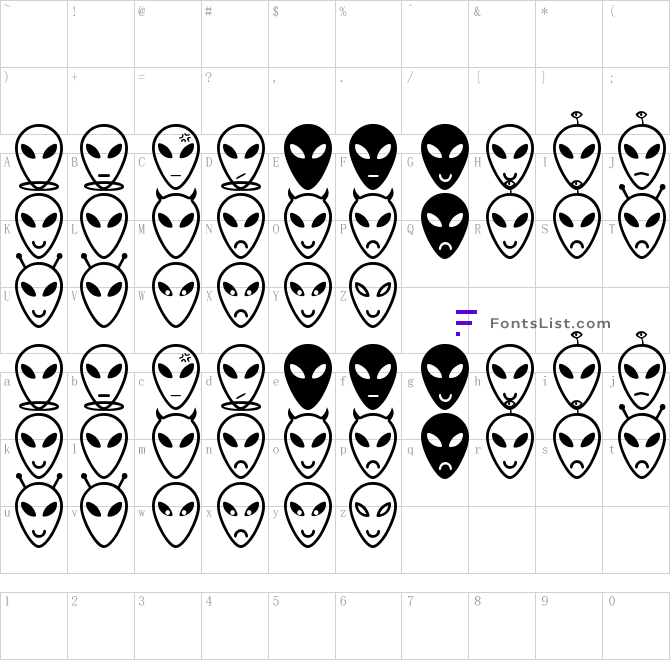
- Font Name:Alien faces St
Alien-faces-St.ttf is a very beautiful artistic font, Alien-faces-St.ttf is widely used in the design and printing of various books and pictures,Alien-faces-St.ttf has a strong visual impact,Alien-faces-St.ttf is a commonly used font in newspapers, magazines and books, and is used in posters, e-commerce Poster design, store design, logo design, font design and other fields.Alien-faces-St.